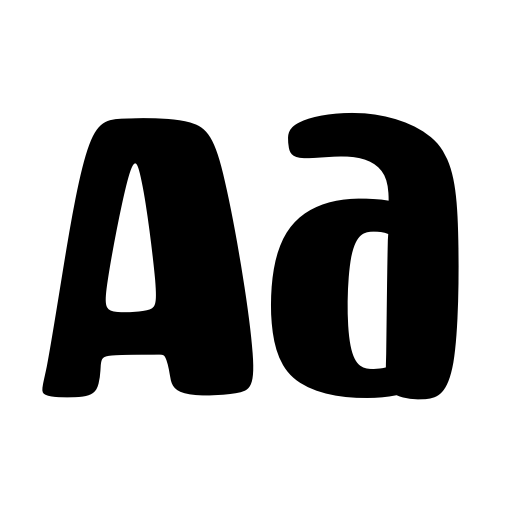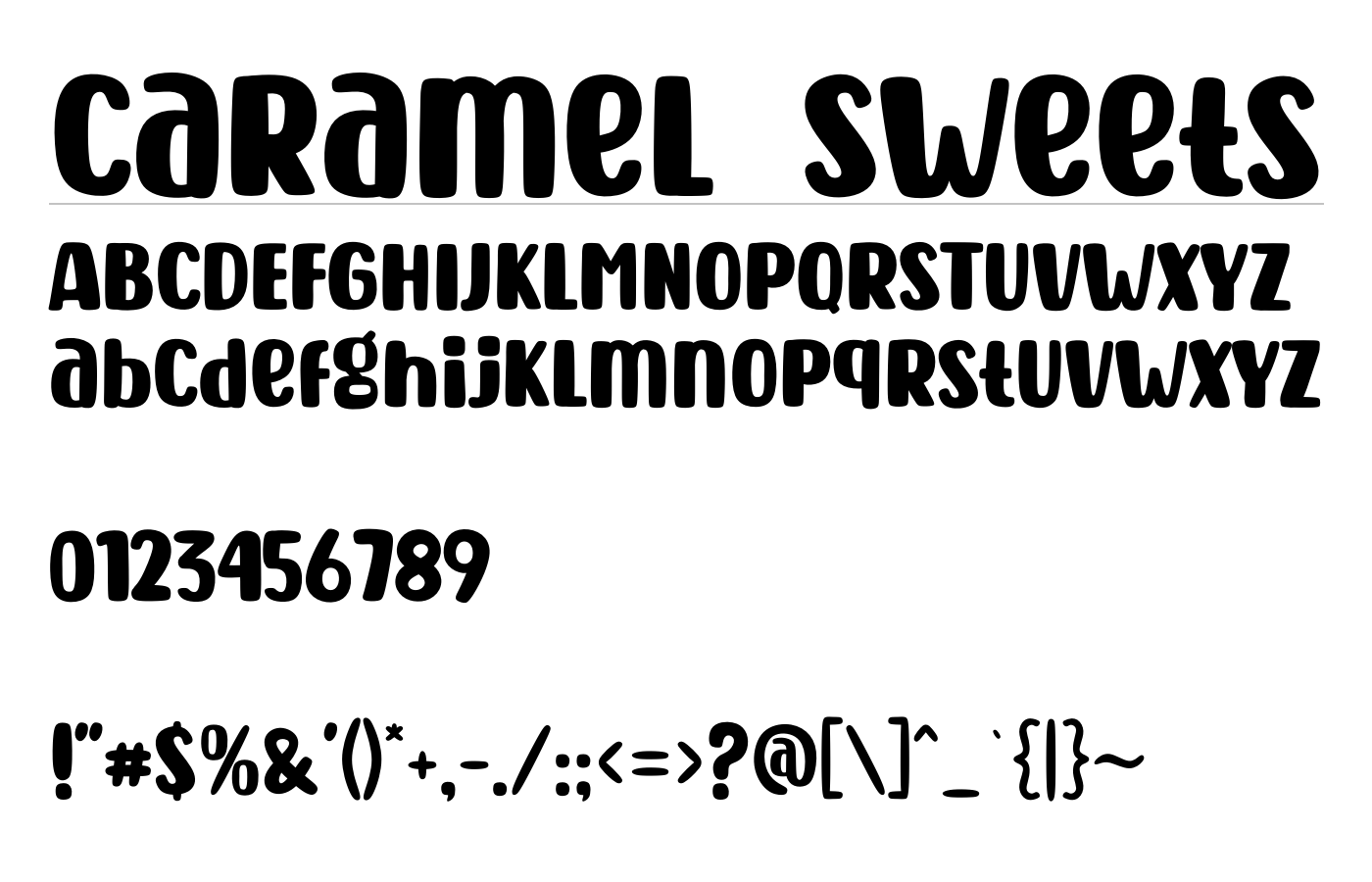
Caramel Sweets is a playful and bold sans serif font with a slightly condensed width and a friendly, rounded stroke style that gives it a warm, casual feel. Its moderate x-height and soft, quirky letterforms make it perfect for fun, approachable branding or packaging, especially for products aimed at children or lifestyle themes. This font works well in headlines, logos, and creative projects where a lighthearted and inviting tone is desired.
Caramel Sweets Font
About Caramel Sweets Font
| Font family | Caramel Sweets Font |
| Designer | deedeetype |